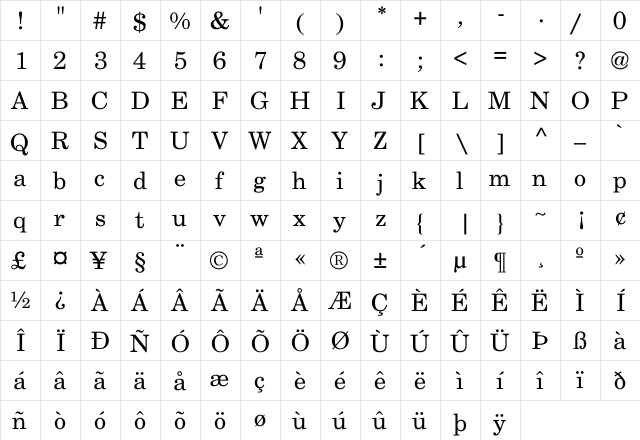
Bucolic Light Regular
Design Context for Bucolic Light Typeface
Bucolic Light takes a measured approach to typography — its balanced proportions and neutral character make it a reliable workhorse for both digital and print work. The delicate stroke weight brings airiness and refinement to layouts.